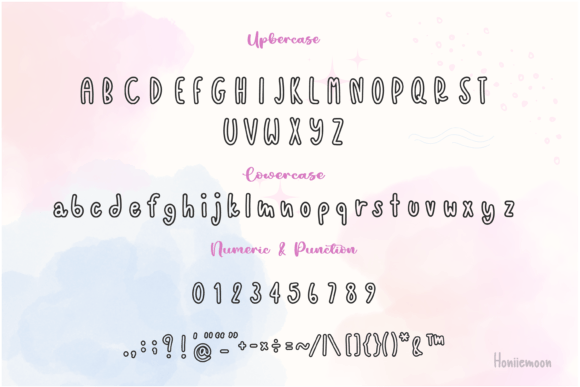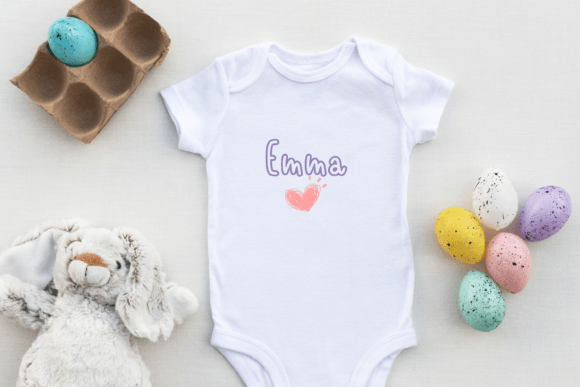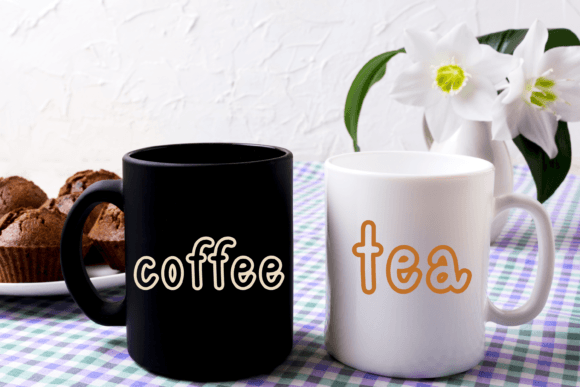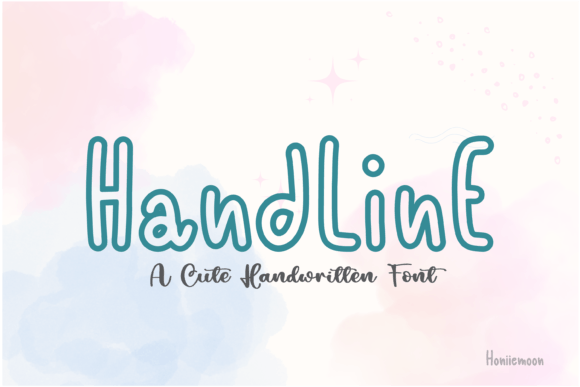
Introducing Handline Font: The Ultimate Display Font for Creative Designs
Are you looking for a font that can add a touch of fun and playfulness to your designs? Look no further than Handline Font! This cool and fun display font is perfect for designers and crafters who want to create eye-catching and engaging visuals. With its cute and jolly appearance, Handline Font is sure to enhance each of your designs and bring them to life.
The Features of Handline Font
Handline Font is a bold and colorful display font that is perfect for a variety of design projects. Its unique and playful style makes it stand out from other fonts, and its versatility ensures that it can be used in a range of contexts. Here are some of the key features of Handline Font:
• Cool and Fun Design: Handline Font has a cool and fun design that is sure to grab attention. Its playful style makes it perfect for designs that require a touch of whimsy and personality.
• Cute and Jolly Appearance: The font has a cute and jolly appearance that is sure to appeal to designers and crafters who want to create friendly and approachable designs.
• Bold and Colorful: Handline Font is a bold and colorful display font that is perfect for designs that require a pop of color and a bold statement.
• Versatile: The font is versatile and can be used in a range of design projects, from posters and flyers to social media graphics and website headers.
The Benefits of Using Handline Font
There are many benefits to using Handline Font in your designs. Here are some of the key advantages of this amazing display font:
• Enhances Designs: Handline Font is sure to enhance each of your designs and bring them to life. Its playful and bold style adds a touch of personality and whimsy to any design.
• Increases Engagement: The font’s fun and playful style is sure to grab attention and increase engagement. Whether you’re designing a poster, flyer, or social media graphic, Handline Font is sure to draw in your audience.
• Limitless Creative Possibilities: The only limit to using Handline Font is your imagination. With its bold and colorful style, you can create a wide range of designs that are sure to impress.
How to Use Handline Font in Your Designs
Using Handline Font in your designs is easy. Here are some tips to get you started:
• Choose the Right Design Project: Handline Font is perfect for a variety of design projects, including posters, flyers, social media graphics, and website headers.
• Experiment with Different Colors: The font’s bold and colorful style makes it perfect for designs that require a pop of color. Experiment with different colors to find the perfect combination for your design.
• Pair with Other Fonts: Handline Font can be paired with other fonts to create a unique and interesting design. Experiment with different font combinations to find the perfect pairing.
• Get Creative!: The only limit to using Handline Font is your imagination. Get creative and experiment with different design ideas to create something truly unique.
In conclusion, Handline Font is a cool and fun display font that is perfect for designers and crafters who want to create eye-catching and engaging visuals. With its cute and jolly appearance, bold and colorful style, and versatile design, Handline Font is sure to enhance each of your designs and bring them to life. So why wait? Download Handline Font today and start creating amazing designs that are sure to impress!